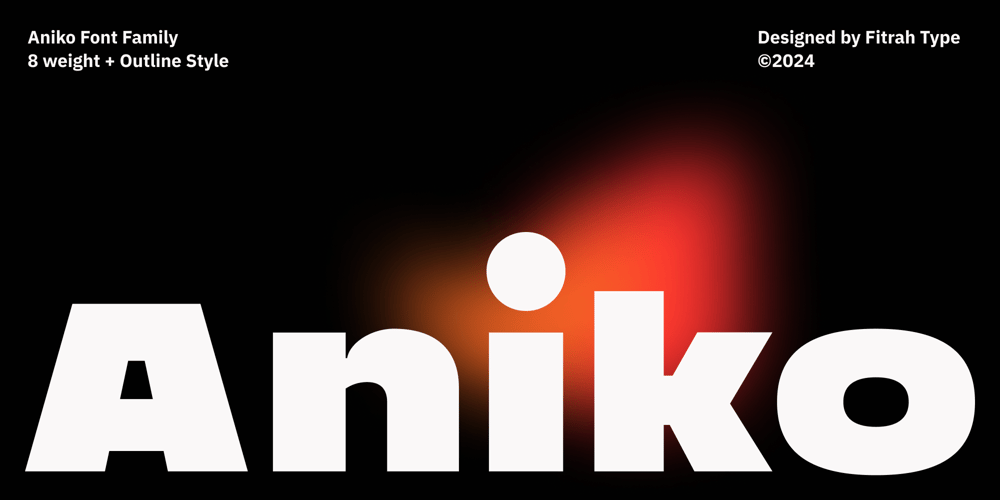
Aniko Font Family was designed by Moch Fitrah Hidayat and published by Fitrah Type. Aniko contains 16 styles and family package options. Aniko is typeface sans display. embodies a clean, minimalist design that focuses on clarity and functionality. This Font perfect for digital platforms, branding, advertising, and user interfaces where readability and a fresh, forward-looking aesthetic are key. Aniko typeface convey a sense of innovation, professionalism, and approachability, making them a timeless choice for any design that look a modern and futuristik.We highly recommend using a program that supports OpenType features and Glyphs panels such as Adobe Illustrator, Adobe Photoshop CC, Adobe InDesign, or CorelDraw, so you can see and access all Glyph variations.